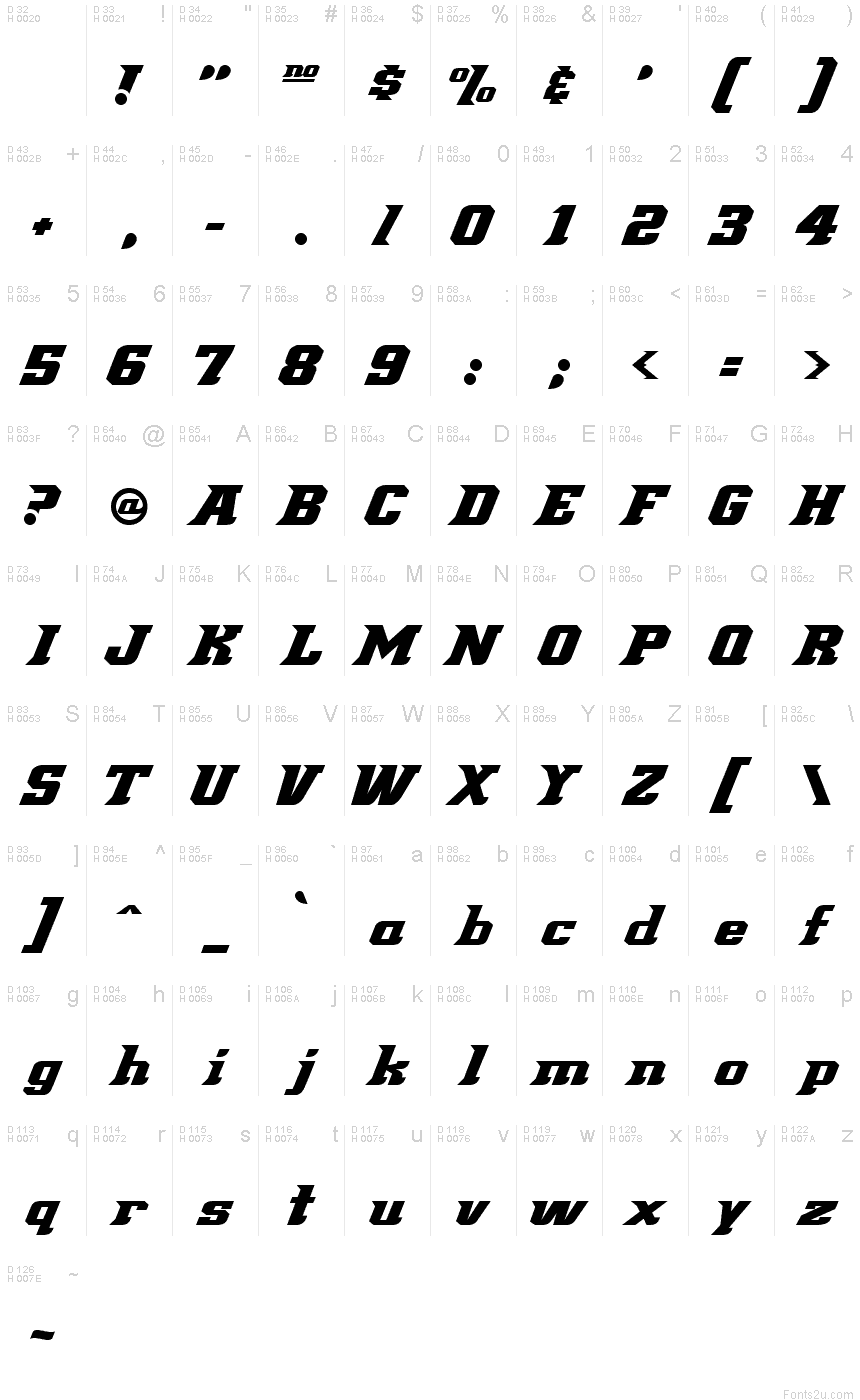
Demonized
Demonized font by GreyWolf WebWorks is a free techno display typeface that hits like a blast of jet-black chrome. Heavy, angular letters pitch forward in a fierce italic stride, with beveled cuts and blocky counters that feel like armor plates on a speeding vehicle. The tight rhythm and slashing diagonals give every word a sense of velocity and danger, as if your text is already mid-chase.
Using Demonized, your titles instantly suit gaming logos, esports teams, sci‑fi movie intros, racing posters, energy drink branding, horror or cyberpunk book covers, and bold YouTube or Twitch graphics. This free font thrives at large sizes, where its sharp edges and dense forms can breathe. For supporting text, pair it with a plain, open sans serif to keep everything legible while Demonized carries the attitude.